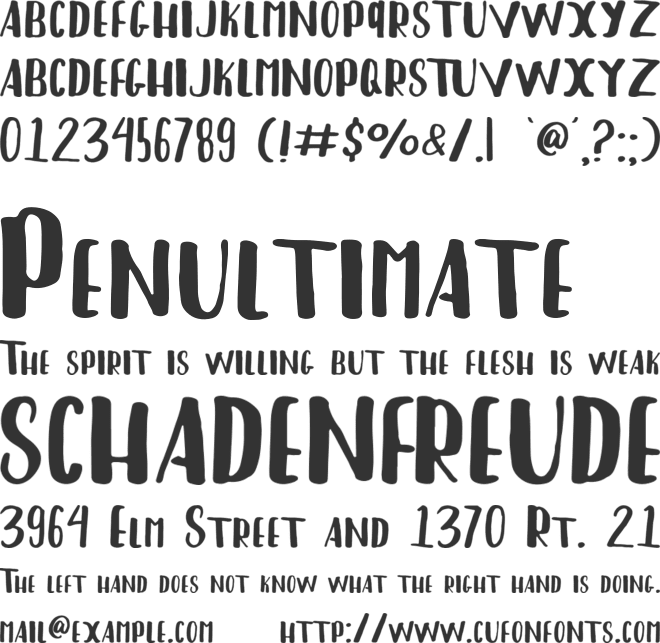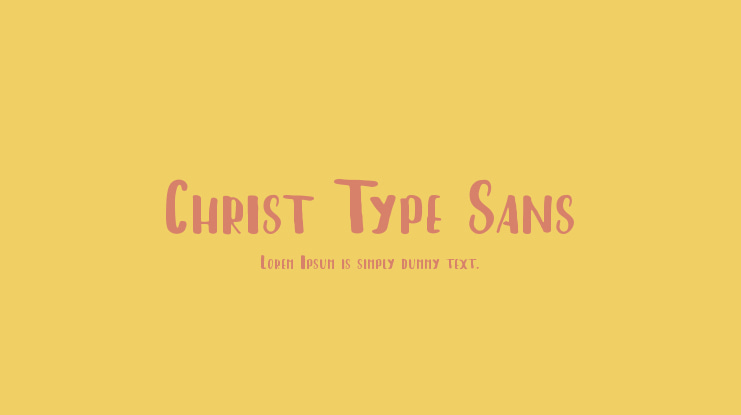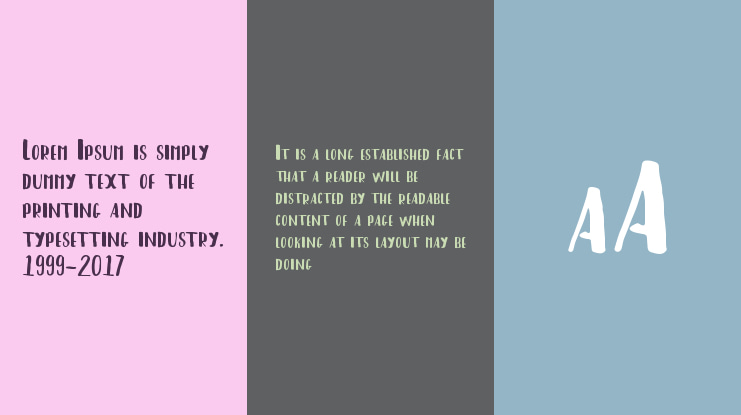
Christ Type Sans Font
The Christ Type Font duo is a fun, handwritten font that will perfectly fit in winter and christmas projects. It can be used for various purposes such as: t-shirts, posters, cards, etc. It comes in Sans font and script font, with extra doodle in numeral script font.